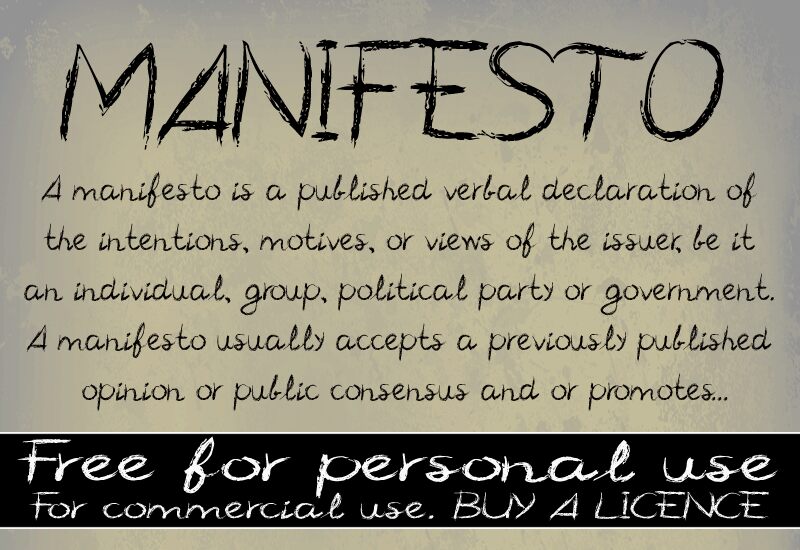
CF Manifesto from CloutierFontes is a free trash script with the abrasive look of lettering scratched quickly across a rough surface. Thin cuts alternate with dense smears and sharp, broken tips.
Punk and underground music graphics are its clearest territory, especially concert posters and album artwork that benefit from the jagged handmade forms. The same damaged marks suit skateboard merchandise and horror event graphics, where the lettering can become part of the distressed illustration.
CF Manifesto Regular is a font by CloutierFontes, designed by Steve Cloutier in 2013.